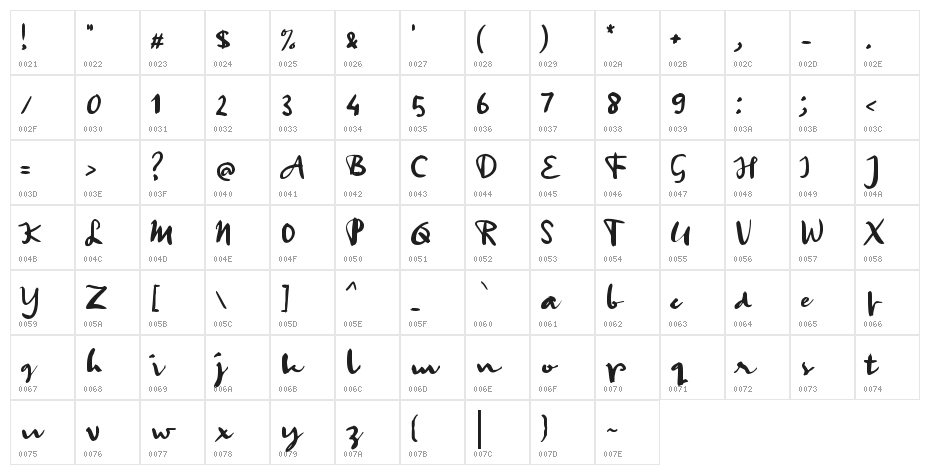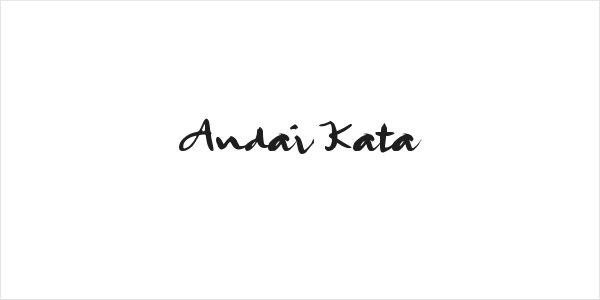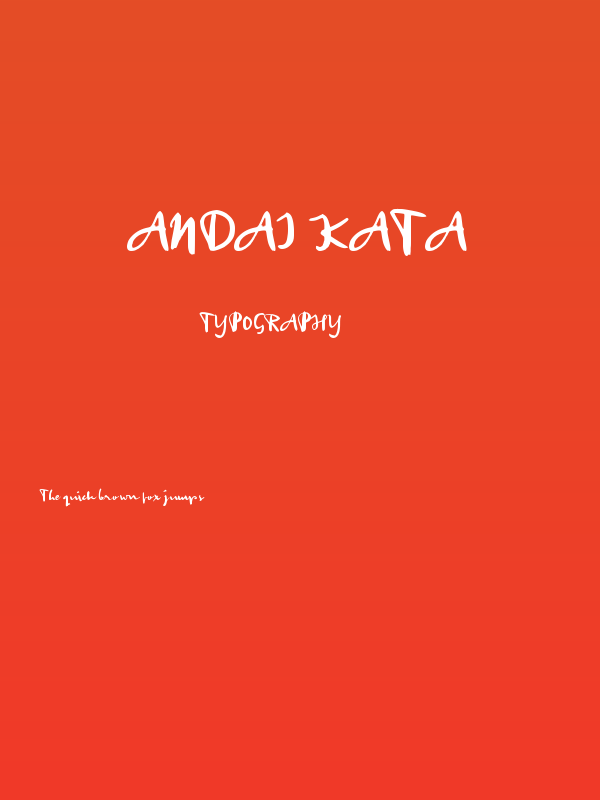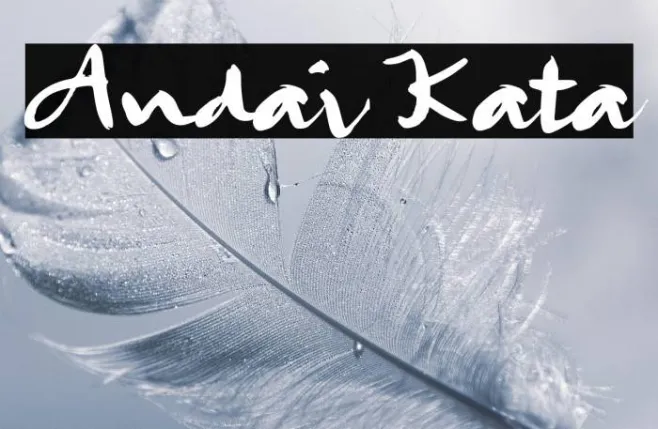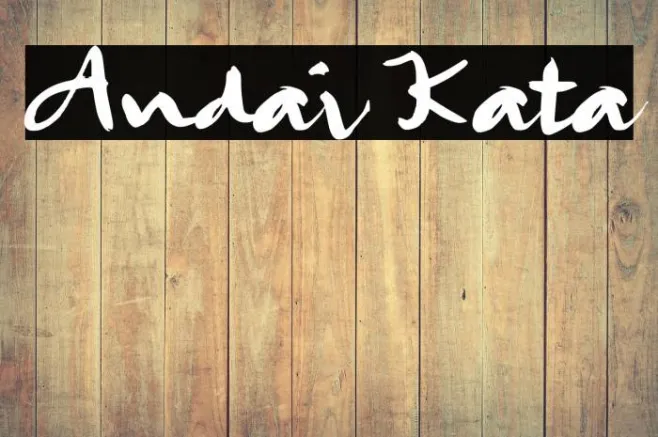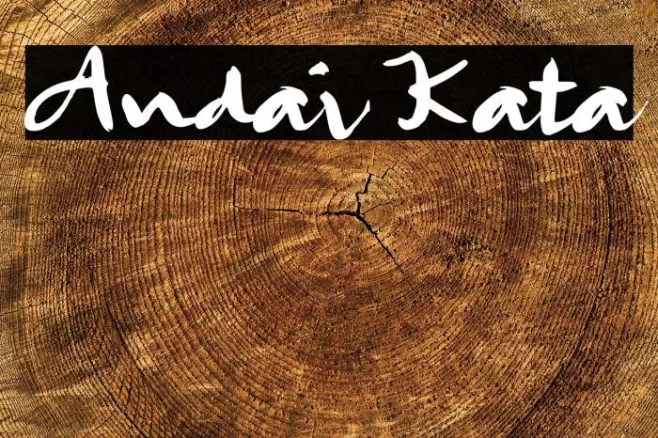
Andai Kata Font
Andai Kata Description
This font exhibits a lively and dynamic handwritten style, characterized by its bold and expressive strokes. The letters have a fluid, cursive appearance, with varying stroke widths that add a sense of movement and personality. The uppercase letters are bold and prominent, while the lowercase letters maintain a consistent flow, enhancing readability. Numbers and special characters are crafted with the same energetic flair, making them stand out. The overall design is informal yet stylish, suitable for projects that require a personal touch.
| Proposed Projects | Ideal for greeting cards, invitations, personal branding, and creative projects that require a personal and artistic touch. |